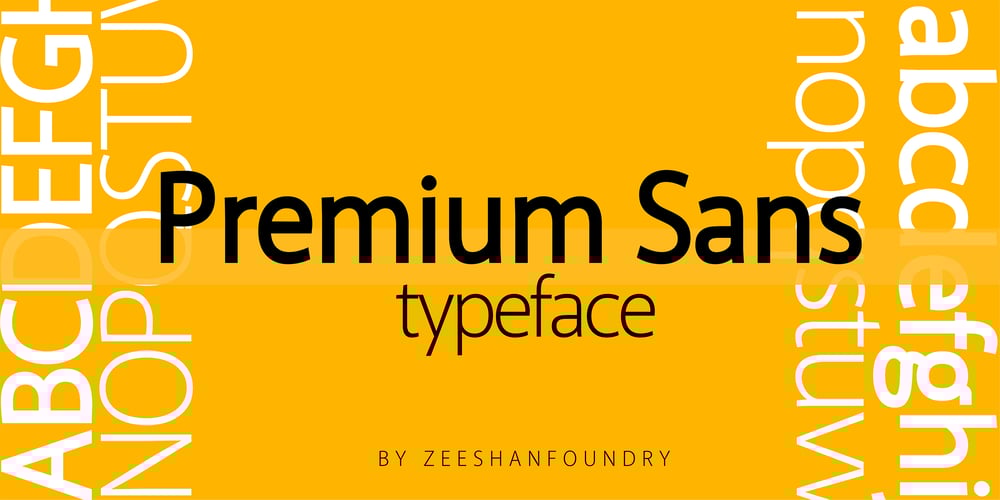
Premium Sans Font Family was designed by Zeeshan Hasnain Jalali and published by ZeeshanFoundry. Premium Sans contains 8 styles and family package options. Premium Sans is a professional typeface which is aspired to solve the major typographic challenges in editorial, print, Graphic design, Commercial designs and other form of templates and documents such as pdf or ms word. It has four weights light, regular, semi bold, bold. Each with an italic profile, so in total it has 8 typefaces. We created this typeface to have attention of reader in Graphic commercial designs and as well as on editorial designs. The X-height plays a great role in readability of a typeface, so we tried to give it a reasonably high x-height with accordance to ascenders and descenders. We’ve engineered it in such a way that it can easily be paired with script, slab serif and serif typefaces. Premium sans is made on minimum required character set which will be handy while typing currency symbols like cents, dollars or euro and also be very useful when typing the characters consisting of diacritic. We’ve designed it in such a way that either you write a long content for editorial purposes or you create a typographic or graphic/commercial design it will look nice and fine which is the uniqueness of this font.